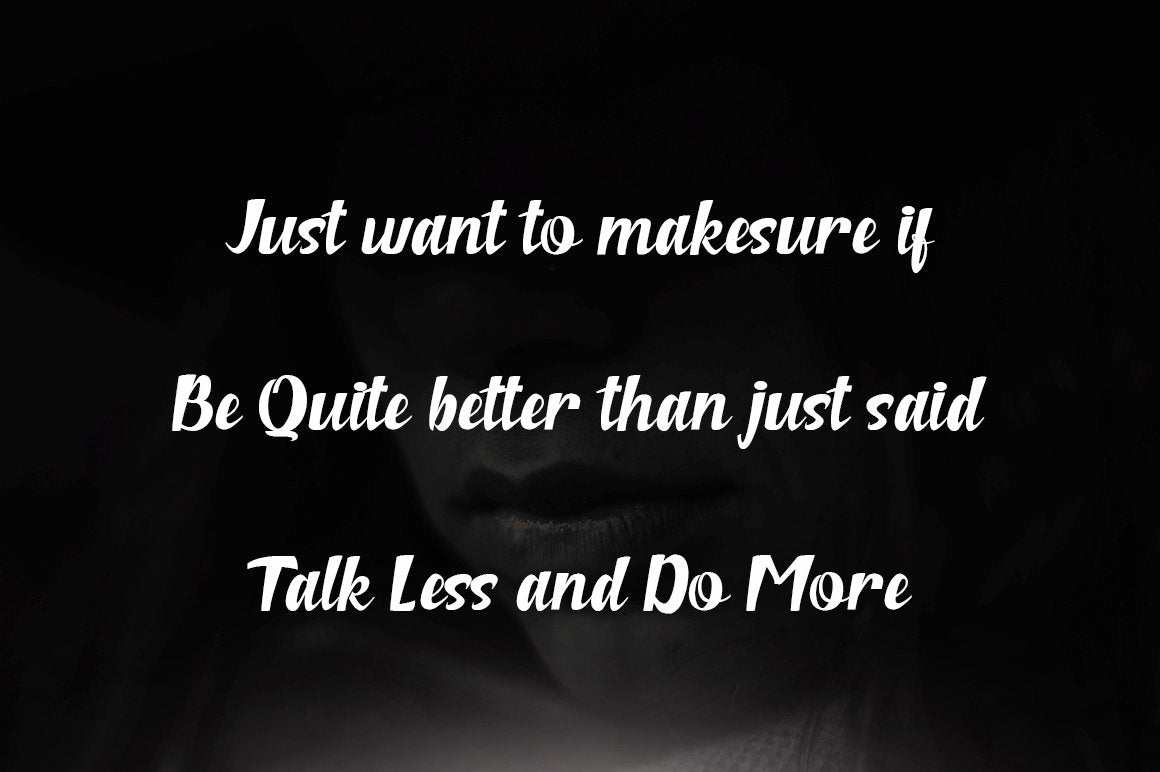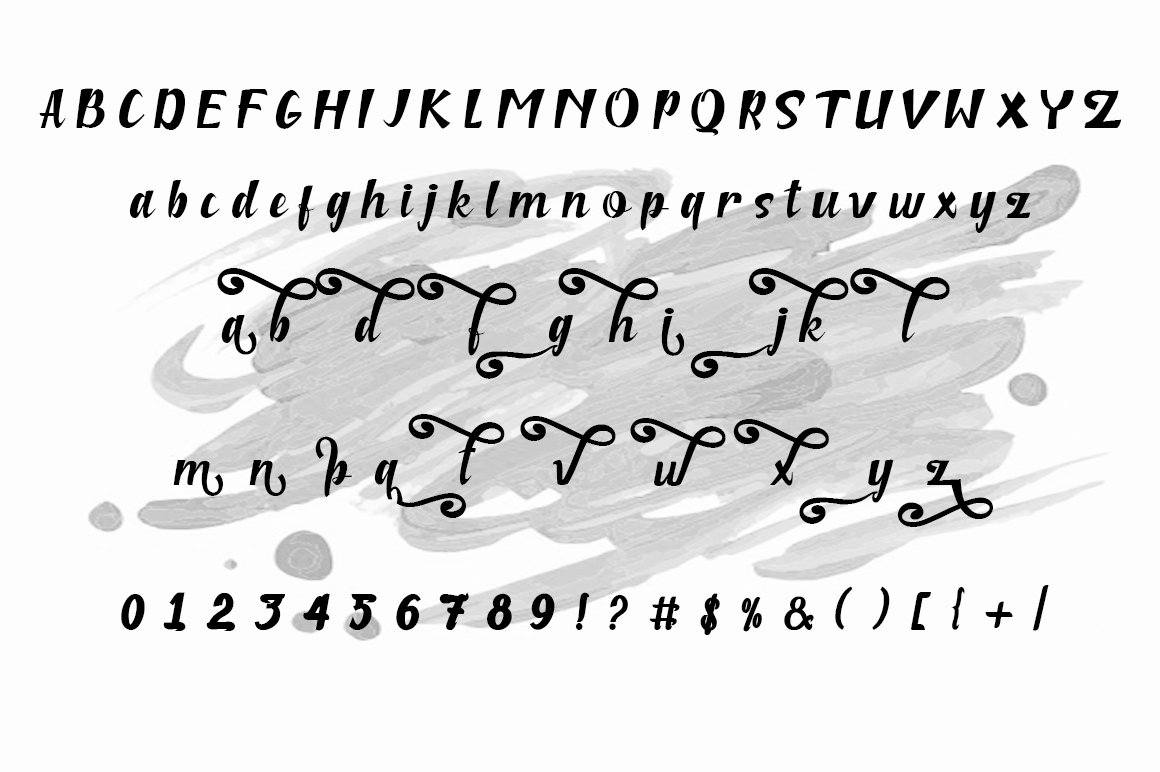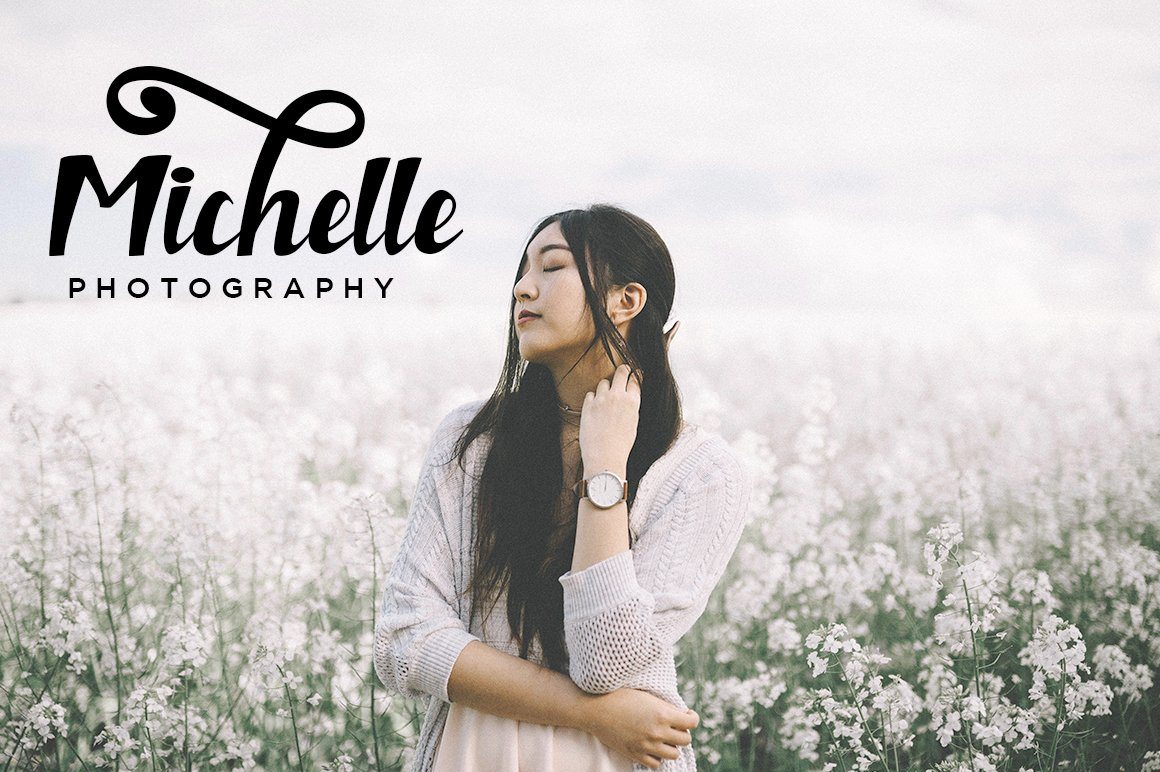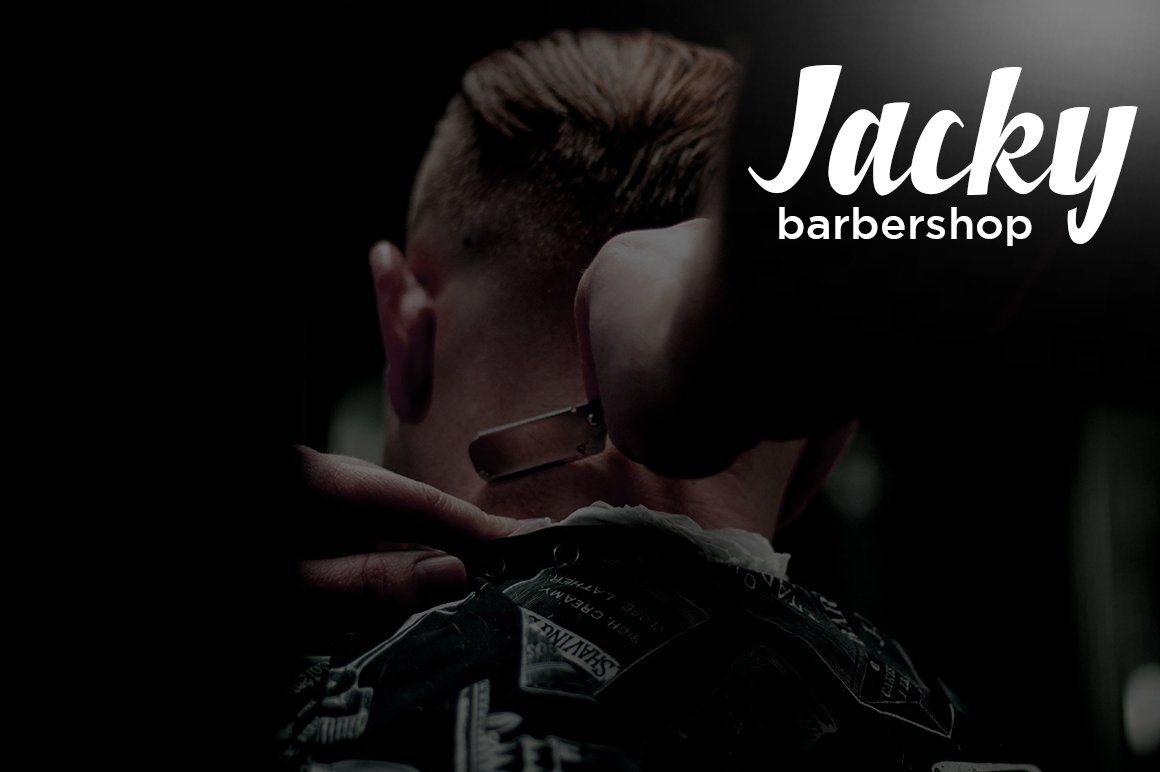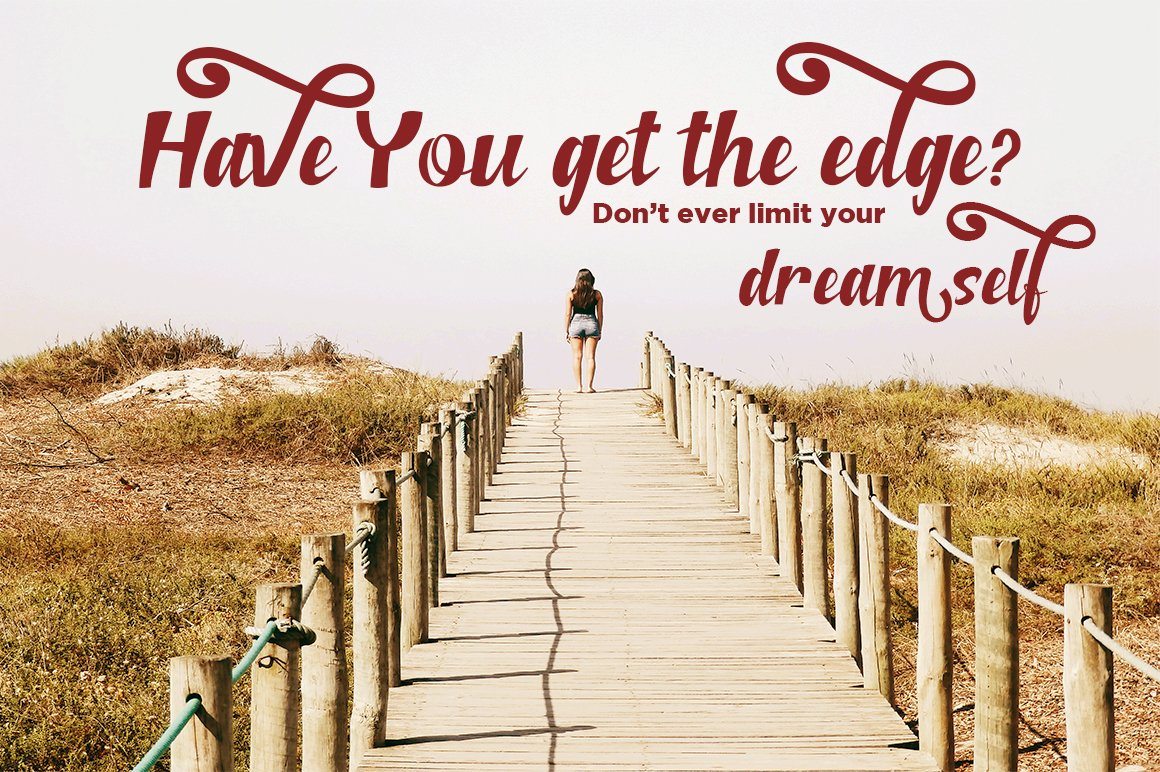
Niken Bold Script
I just present My new product with the name Niken. Niken is minimalist font with handwritten taste. with many sensation of this font. There are many stylistic alternate that required for beauty show as You can see in couple preview. You can use this font to many function and brand that requirement for. Support many language with complete numerical and punctuation. I hope You will enjoy it with this font. Thanks for visited and reviewed. Success is always for You.